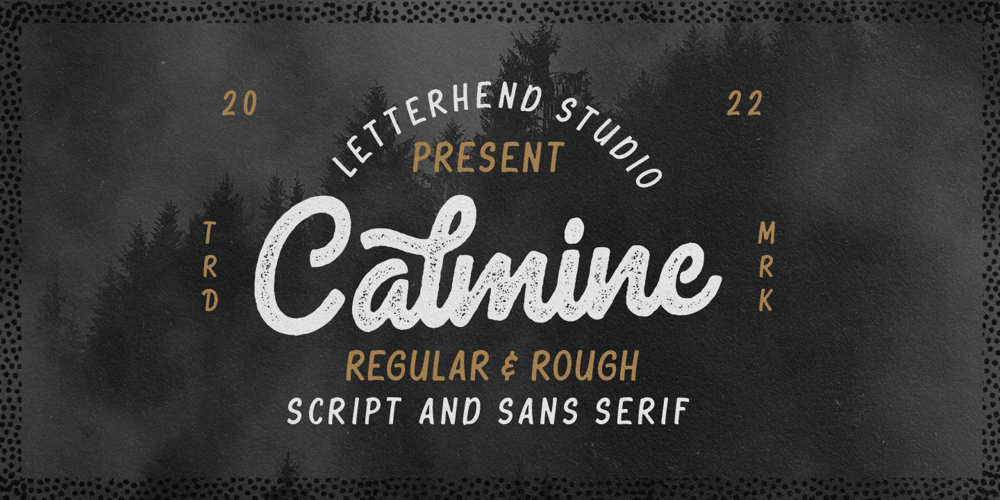
Calmine Font Duo Font Family was designed by Hendry Juanda and published by Letterhend. Calmine Font Duo contains 4 styles and family package options. Calmine is a font duo package contain a hand drawn bold script and sans serif which looks great to be paired especially for vintage and adventure theme! This font duo is purposely made for headline, display or logotype, and signature which need a standout appearing. This font is also suitable to be applied especially in logo, and the other various formal forms such as invitations, labels, logos, magazines, books, greeting / wedding cards, packaging, fashion, make up, stationery, novels, labels or any type of advertising purpose.Features : Calmine Script Regular and Rough Calmine Sans Regular and Rough uppercase & lowercase numbers and punctuation multilingual alternates & ligatures PUA encoded We highly recommend using a program that supports OpenType features and Glyphs panels like many of Adobe apps and Corel Draw, so you can see and access all Glyph variations.